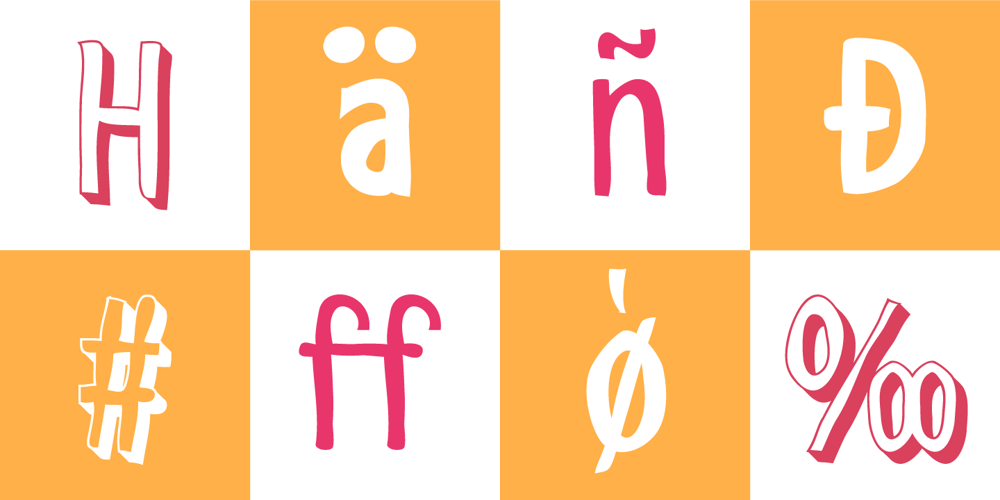
Shaky Hand Some Comic Font Family was designed by Manuel Viergutz and published by TypoGraphicDesign. Shaky Hand Some Comic contains 3 styles and family package options. CHARACTERISTICS The kiddy and warmly character and the cute, huge points (amongst others punctuation), gives the typeface a high recognition value and uniqueness. APPLICATION AREA The warm, child-like, bold and striking sans serif font »Shaky Hand Some Comic« would look good at display size for headlines in magazines or websites, posters, packaging, covers or webbanner. TECHNICAL SPECIFICATIONS Headline Font | Display Font | Sans Serif Font »Shaky Hand Some Comic« OpenType Font with 340 glyphs alternative letters and ligatures (with accents & €) & 3 styles (regular, bold & 3d)